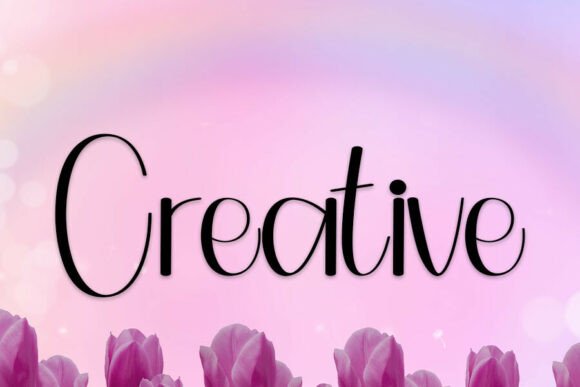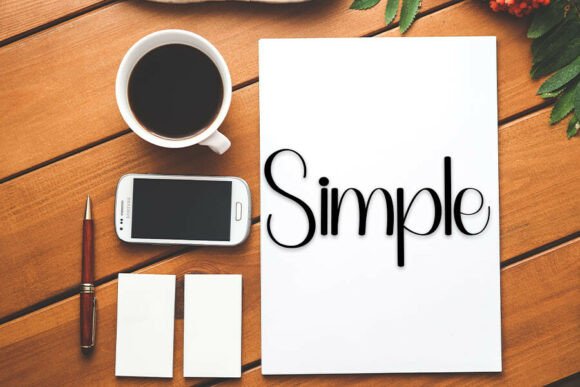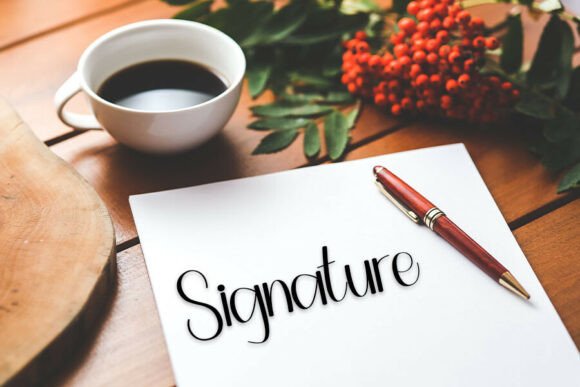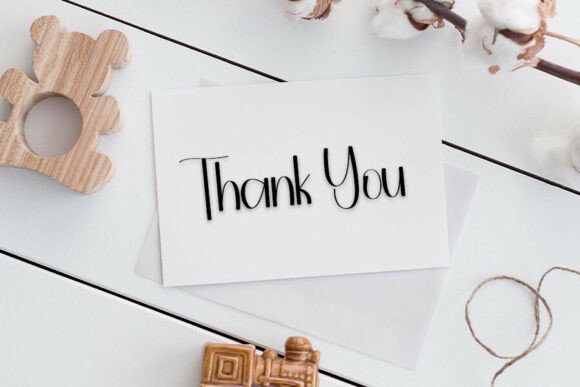
The Perfect Blend of Whimsy and Elegance: Introducing the Boho Font
Have you ever been browsing through a vintage market, surrounded by eclectic trinkets and colorful fabrics, and suddenly feel the urge to create something that captures the essence of that carefree moment? For designers, those sparks of inspiration can be the starting point of something truly special. And for those who love the Boho lifestyle, the perfect font to match that vibe has finally arrived.
The Boho Font is a delicate, cursive handwritten font that exudes joy and romance. Its gentle curves and playful strokes make it an ideal choice for designers looking to add a touch of whimsy to their projects. Whether you’re working on a branding campaign, designing a wedding invitation, or creating a lookbook for your fashion label, this font is sure to elevate your design to the next level.
Key Features of Boho Font
- Font Family: Boho Font comes in a single font family with multiple styles, including Regular, Italic, Bold, and Bold Italic.
- Unique Characteristics: Boho Font features a unique blend of bohemian and vintage elements, with intricate details and ornaments that add a touch of elegance and sophistication to any design.
- Character Set: The font family includes a comprehensive character set, including Latin, Cyrillic, and Greek alphabets, as well as punctuation and special characters.
Boho Font Review
I’ve had the chance to work with the Boho Font, and I must say it’s a unique addition to any design project. ✨ One of the things that stands out is its ability to evoke a sense of free-spirited elegance, perfect for those who want to add a touch of whimsy to their designs. The font’s organic feel and subtle flair make it ideal for creative and artistic projects.
However, I’ve noticed a few limitations that might affect its usability. ⚠️ For instance, the font’s irregularities can make it challenging to read, especially in smaller sizes or when used extensively throughout a document. Additionally, the font’s complexity can lead to compatibility issues with certain software or platforms.
Here are some specific pros and cons to consider:
- ✨ Unique, free-spirited aesthetic
- ✨ Ideal for creative and artistic projects
- ⚠️ Can be challenging to read in smaller sizes
- ⚠️ May cause compatibility issues
- ⚠️ Can be overwhelming when used extensively
Overall, I think the Boho Font is a great choice for designers who want to add a touch of personality to their work. While it may not be suitable for every project, it’s a great addition to any designer’s toolkit.
The Boho Font is ideal for use in creative and artistic projects, such as:
- Travel and adventure blogs
- Artistic and creative portfolios
- Home decor and lifestyle blogs